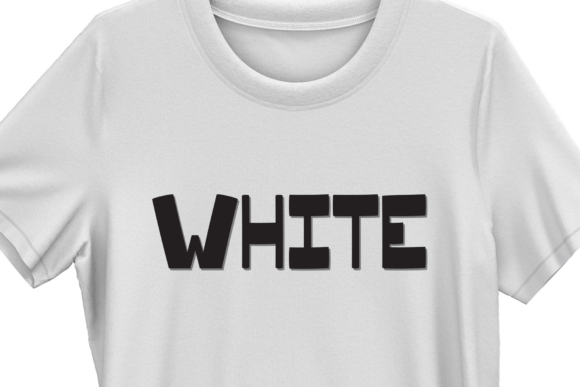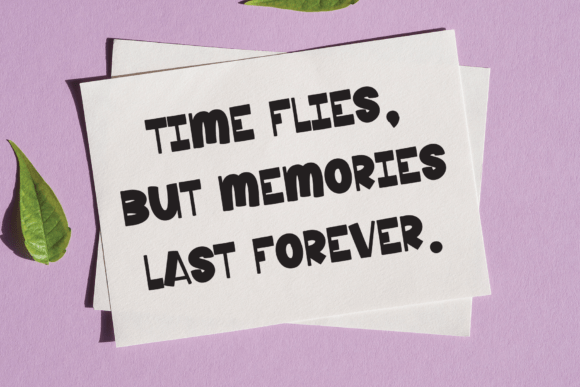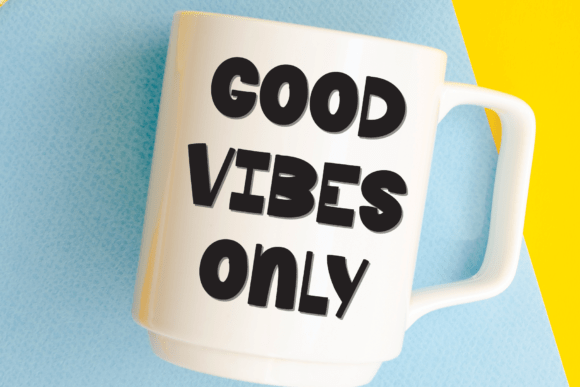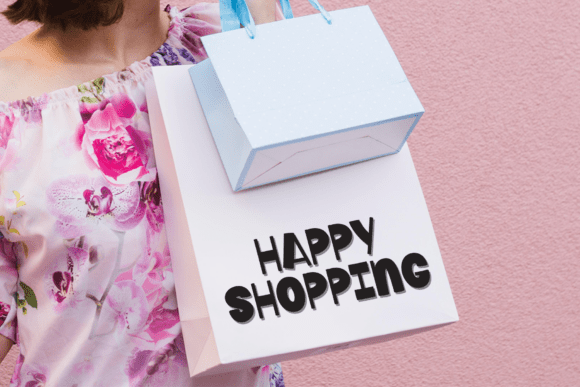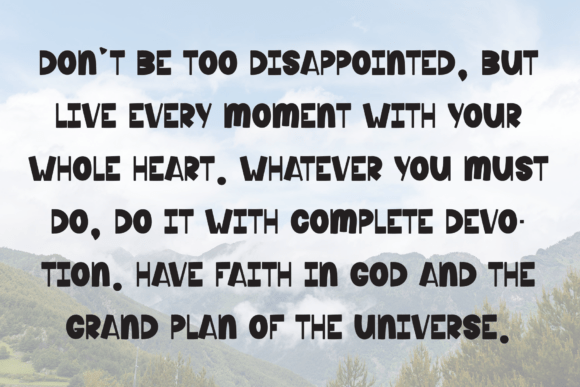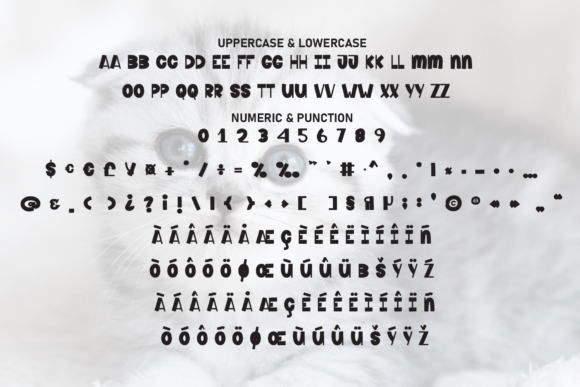
Introduction to Baby Kitten Font Font
Fonts play a crucial role in design, and the Baby Kitten Font font is a typeface that brings both character and versatility to any project. Whether you’re working on a branding project, a website, or a print design, the Baby Kitten Font font offers a unique style that can elevate your work.
Baby Kitten is a bold, chunky, and irresistibly playful display font that captures the energetic spirit of our favorite feline friends.
Characterized by its heavy, blocky letterforms and unique “cut-out” details that mimic playful eyes or whiskers, this typeface is designed for maximum fun and high impact Its solid construction and soft, rounded corners make it an exceptional choice for children’s toy packaging, pet shop branding, nursery decor, and lighthearted apparel design.
Key Features of Baby Kitten Font Font
Why Choose Baby Kitten Font Font?
The Baby Kitten Font font is more than just a typeface – it’s a design tool that helps you communicate your message with style and clarity. Its unique character set and versatile design make it suitable for a wide range of applications, from elegant invitations to bold headlines.
With its carefully crafted letterforms and balanced proportions, the Baby Kitten Font font ensures readability and visual appeal across all mediums.
What makes Baby Kitten Font font special?
The Baby Kitten Font font stands out with its unique design, exceptional readability, and versatility across various design applications.